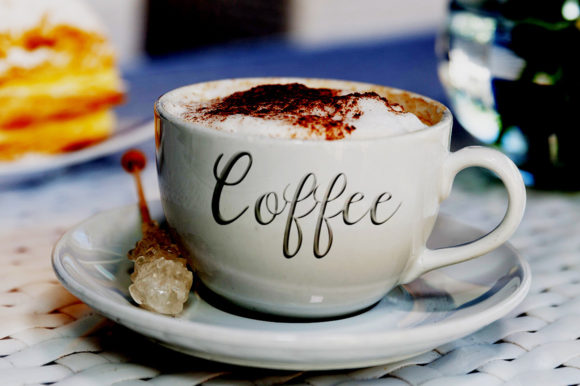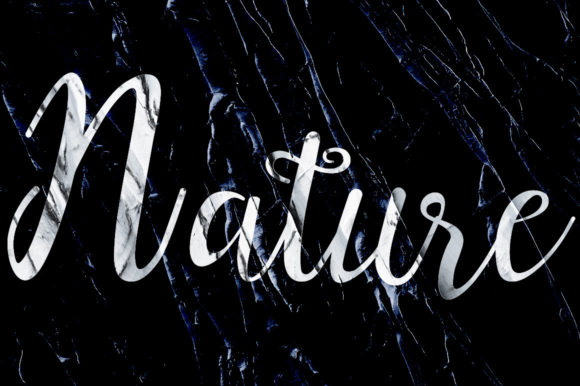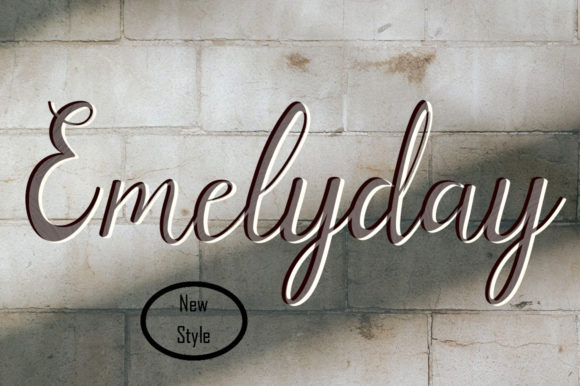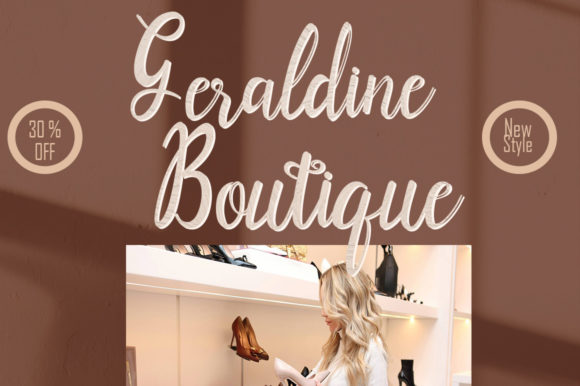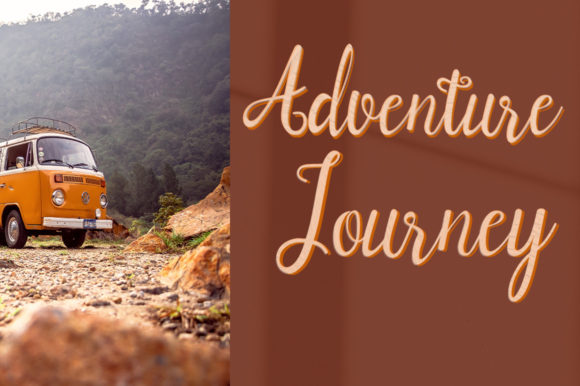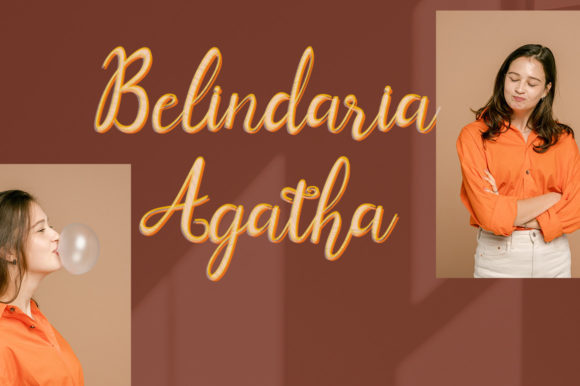
The Perfect Font for Your Next Design Project
Have you ever stared at a blank design canvas, waiting for the perfect font to strike inspiration? For many designers, this is a familiar creative conundrum. The right font can make or break the look and feel of a design, elevating it from bland to grand. This is where the Ashadiya Font comes in – a beautifully crafted script font designed to elevate your creations.
Ashadiya Font is more than just a pretty face; it’s a versatile tool for designers seeking to create stunning packaging, mockups, invitation cards, flyers, and event posters. Its well-balanced design ensures that your text stands out without overpowering the rest of the composition. Whether you’re a seasoned pro or a budding designer, this font is sure to become your go-to companion for all your creative endeavors.
- Unique Character Set: Ashadiya Font features a unique set of characters, including Devanagari script, which is commonly used in Indian languages, making it an ideal choice for designers and typographers working on projects that require this script.
- Stylistic Variations: The font includes various stylistic sets, such as regular, bold, italic, and bold italic, allowing users to create different visual effects and emphasize specific text elements.
- Language Support: Ashadiya Font supports multiple languages, including English, Hindi, Marathi, and other Indian languages, making it a versatile choice for designers working on multilingual projects.
Ashadiya Font Review
I recently had the chance to work with the Ashadiya font, and I must say it’s a unique and intriguing addition to any design project. ✨ One of the things that works well with this font is its versatility. It’s a display font that can be used for headings, titles, and even body text, making it a great option for designers who want a single font to cover multiple purposes.
Another strength of the Ashadiya font is its exotic feel, which can add a touch of elegance and sophistication to any design. ✨ The font’s intricate details and flourishes make it perfect for use in high-end branding, packaging, and advertising materials.
While the Ashadiya font has its strengths, it also has some limitations that designers should be aware of. ⚠️ For one, the font can be difficult to read at smaller sizes, which may limit its use in body text or other situations where readability is crucial.
- Lack of legibility at smaller sizes
- Might be too ornate for some design styles
- May not be suitable for large blocks of text
Overall, I think the Ashadiya font is a great addition to any designer’s toolkit, but it should be used judiciously and with consideration for its limitations. With the right design approach, it can add a touch of sophistication and elegance to any project.
The Ashadiya font is ideal for creating elegant and sophisticated designs. Some common use cases include:
- Formal event invitations and announcements
- High-end branding and marketing materials